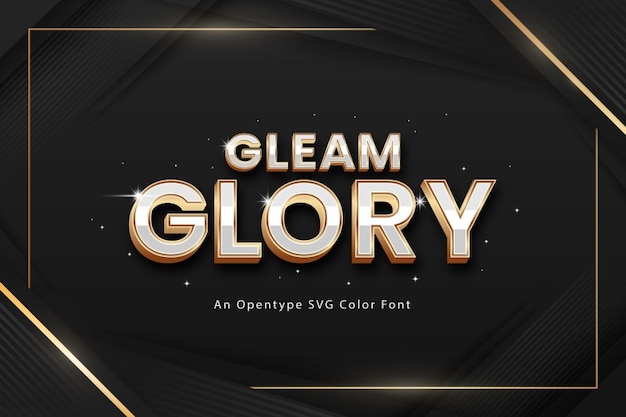
Gleam Glory
Gleam Glory Font
The font that's all about elegant, luxurious, and stylish vibes, shining bright like a diamond! Perfect for adding that touch of class to your projects, this font screams sophistication and glamour! Get ready to make heads turn and jaws drop; so, let your designs shine and dazzle like never before with Gleam Glory!